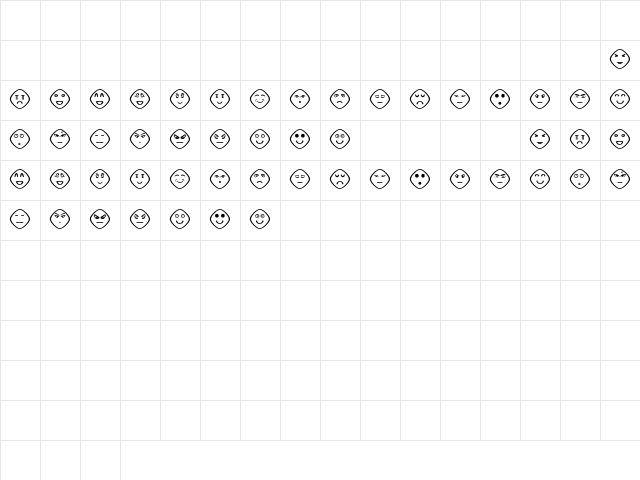
Another Faces St Regular Free Font
Another Faces St Regular
Design Context for Another Faces St
Another Faces St is a composed and adaptable typeface that performs quietly and consistently across a wide range of design contexts.
Pro Tip: Use Another Faces St in both headline and body roles to test its range before committing to a single application.